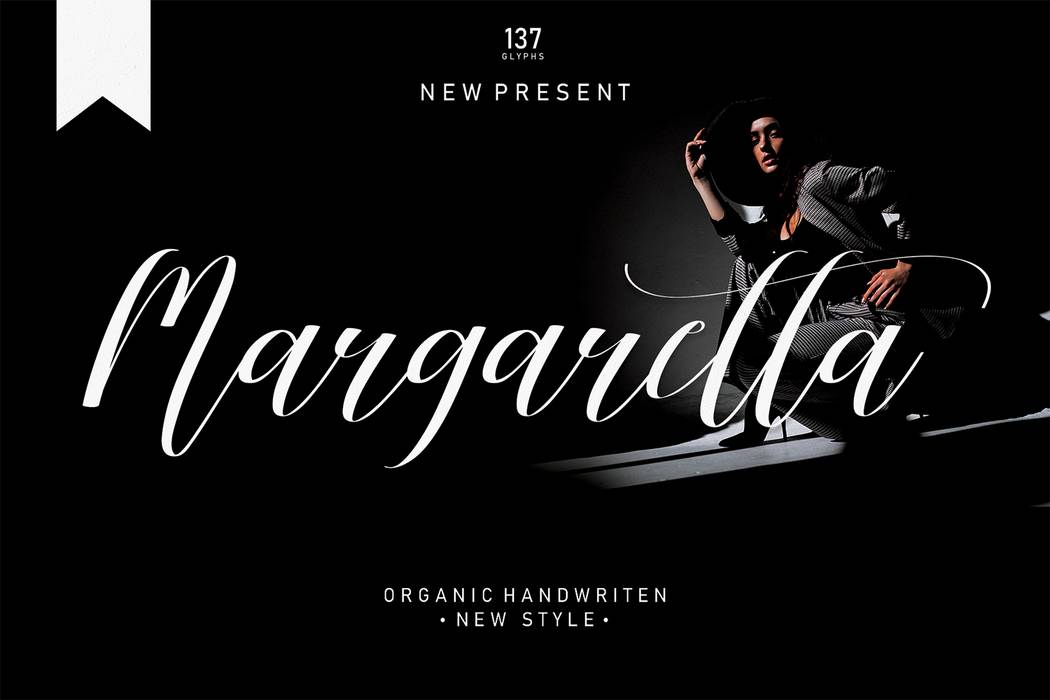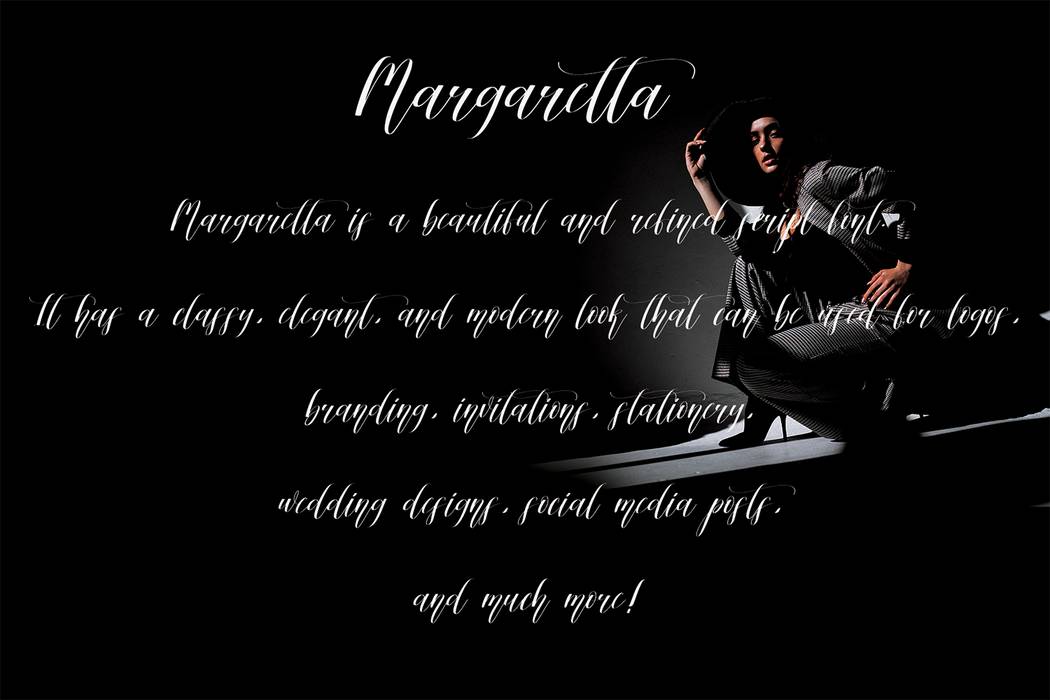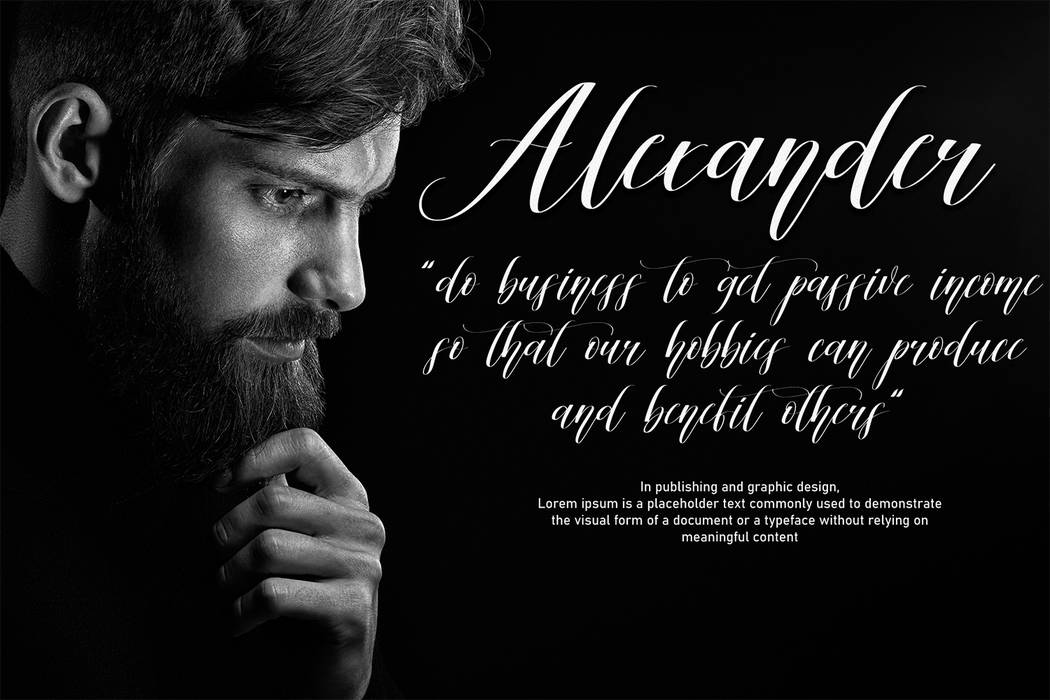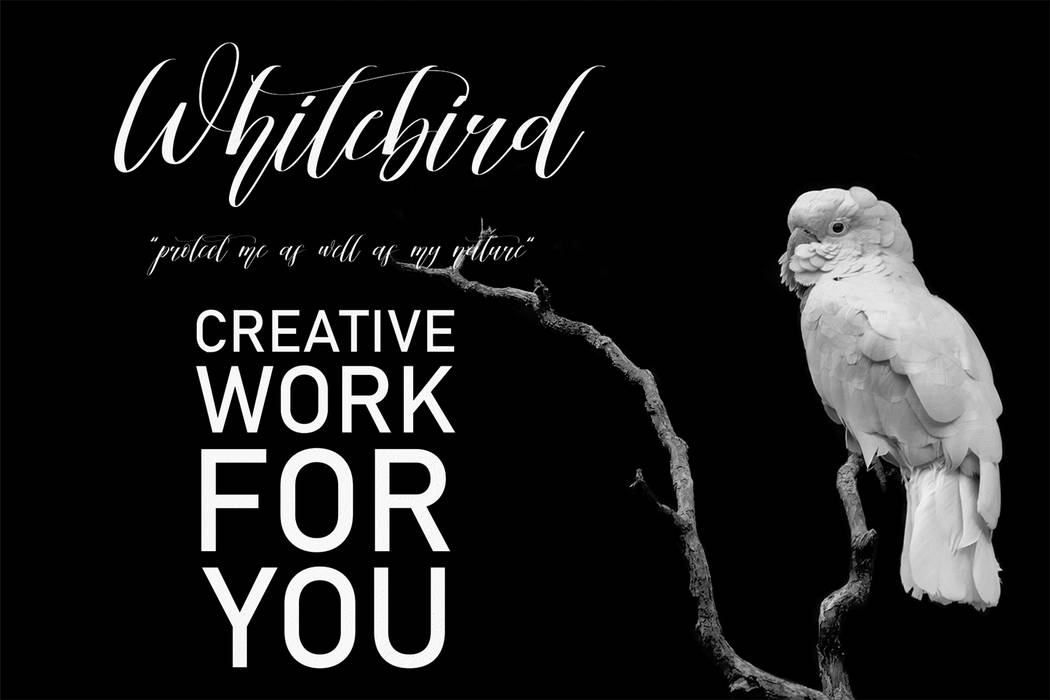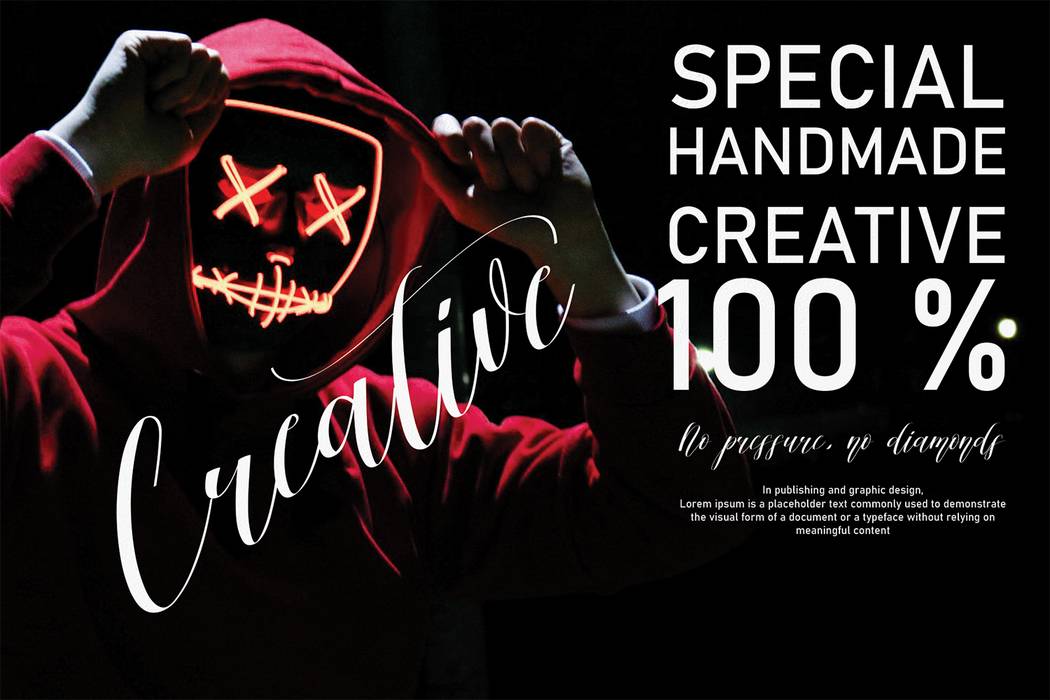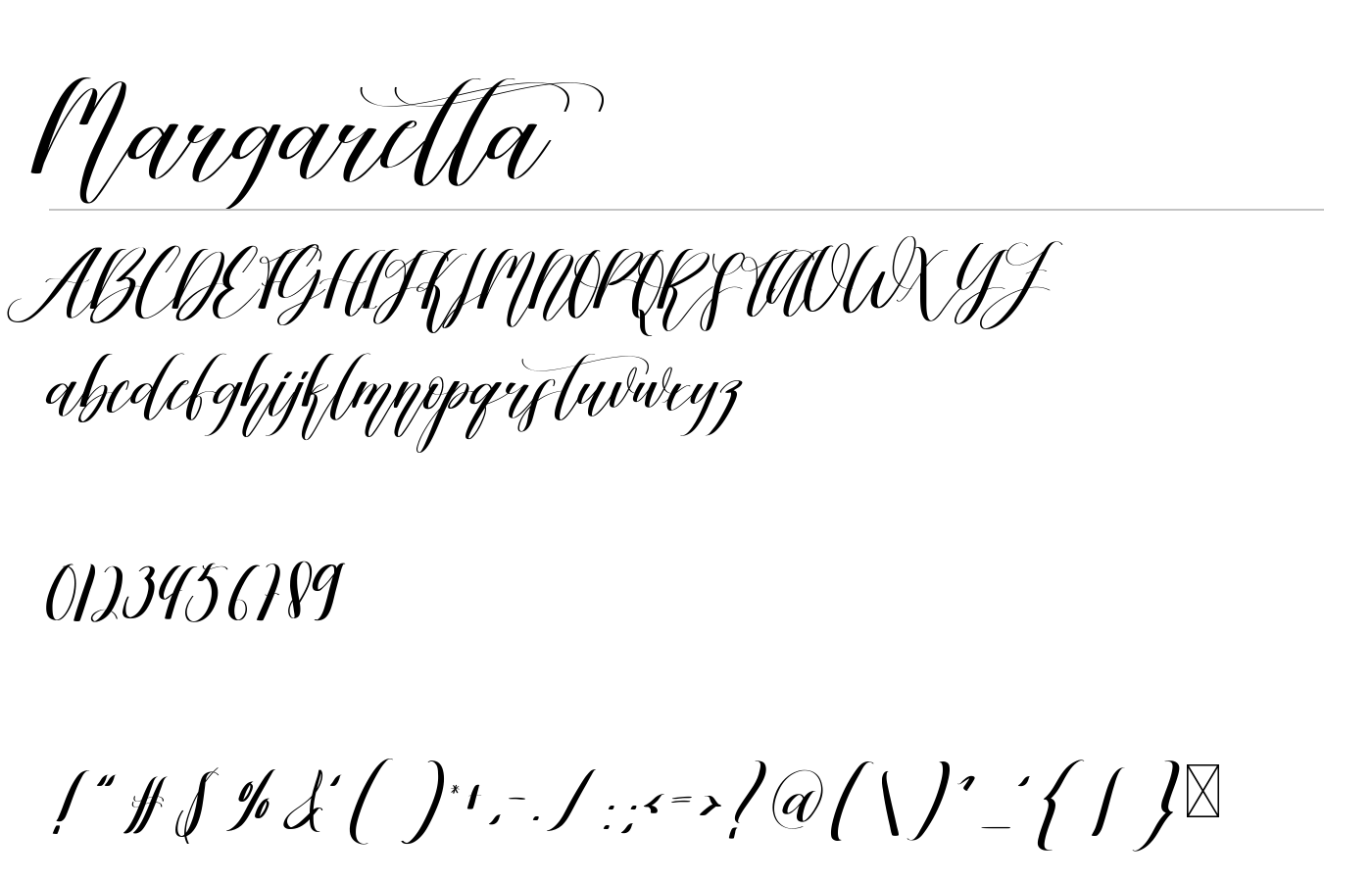
Margaretta is an elegant script font characterized by its flowing, calligraphic strokes and high contrast between thick and thin lines. Its refined, decorative style with delicate swashes makes it perfect for luxury branding, wedding invitations, and sophisticated editorial use where a graceful, feminine touch is desired. This font shines in headlines and logos, bringing a sense of romance and refinement to any design.
Margaretta Font
About Margaretta Font